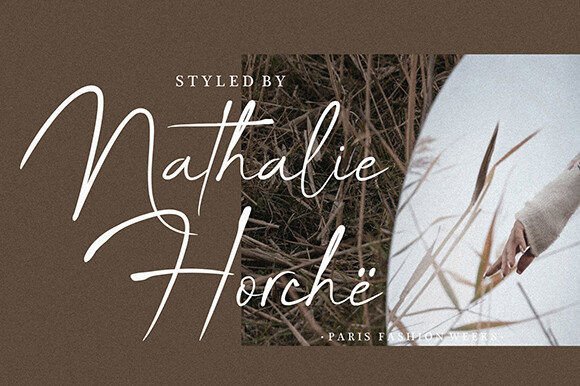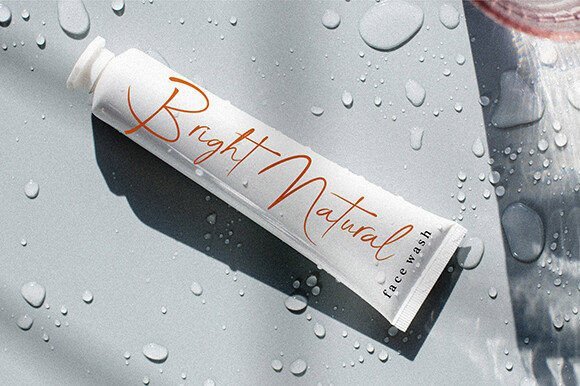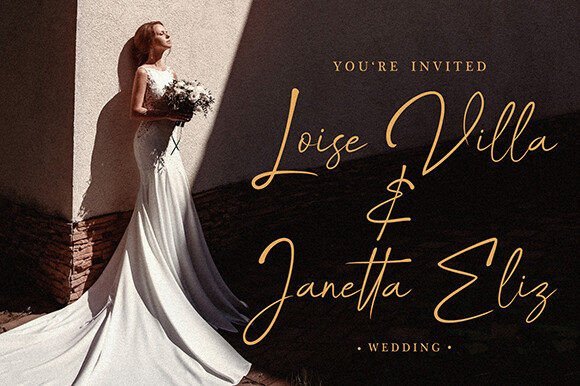
Birthday Wishlist Font
Say hello to The Birthday Wishlist! A new signature font with a simple and classy style! It's perfect for invitations, cards, product logos, quotes, business cards, food brand logos, websites, and much more.